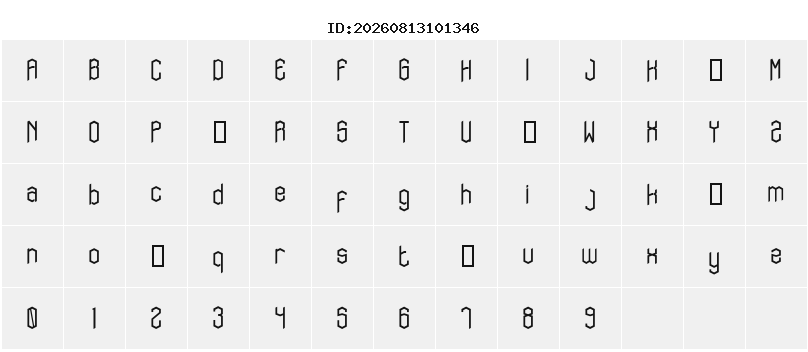
afsda Preview
• Font Name: afsda
• Font ID: 1.000;HL ;RegistrFonde
• Full Font Name: Registr Fonde
• Version: February 3, 2014, initial release
• PostScript Name: RegistrFonde
• Character Count: 87
About afsda.ttf
afsda.ttf is a modern, elegant sans-serif font designed for ultimate readability and visual harmony. Perfect for branding, headlines, web design, and print materials.